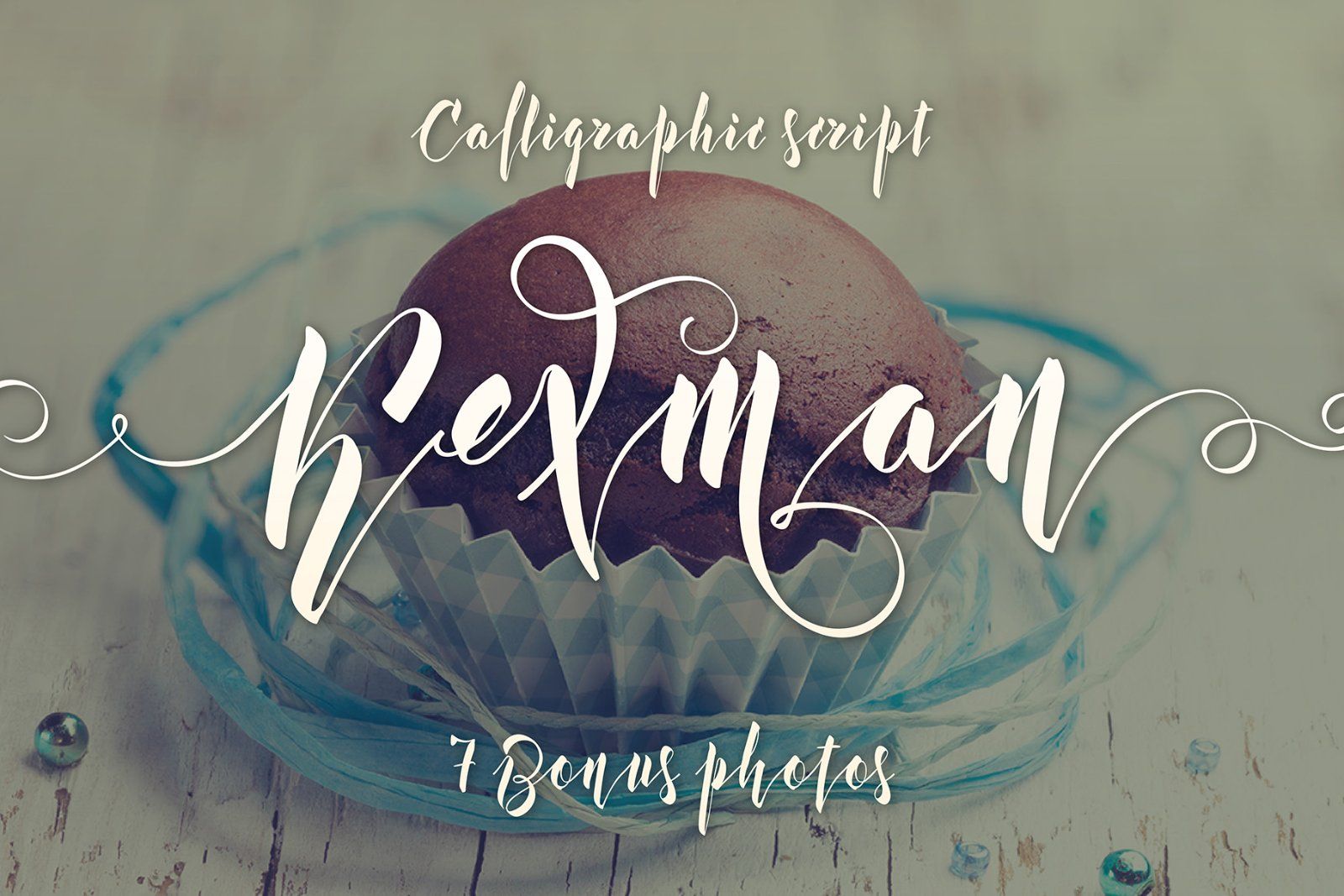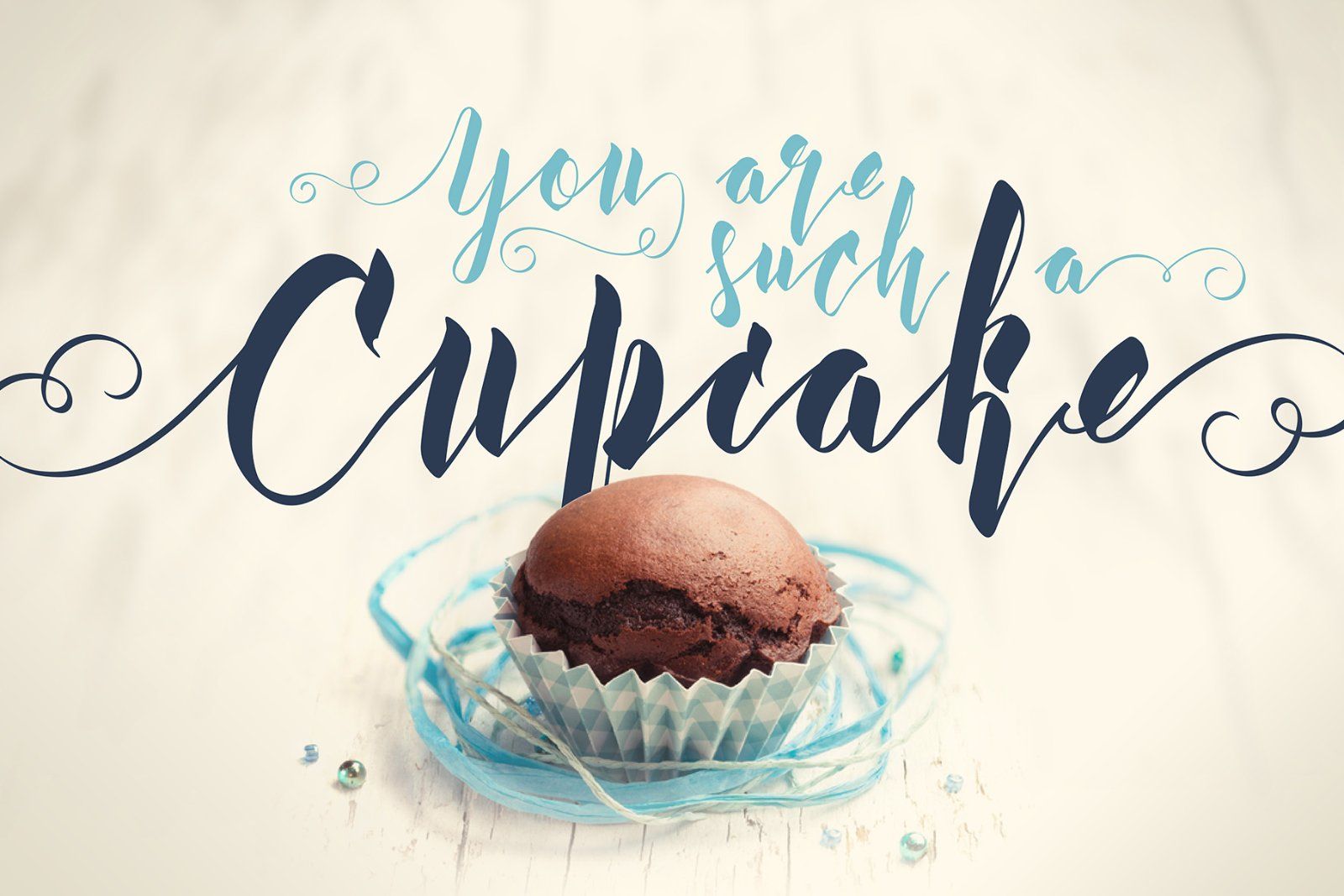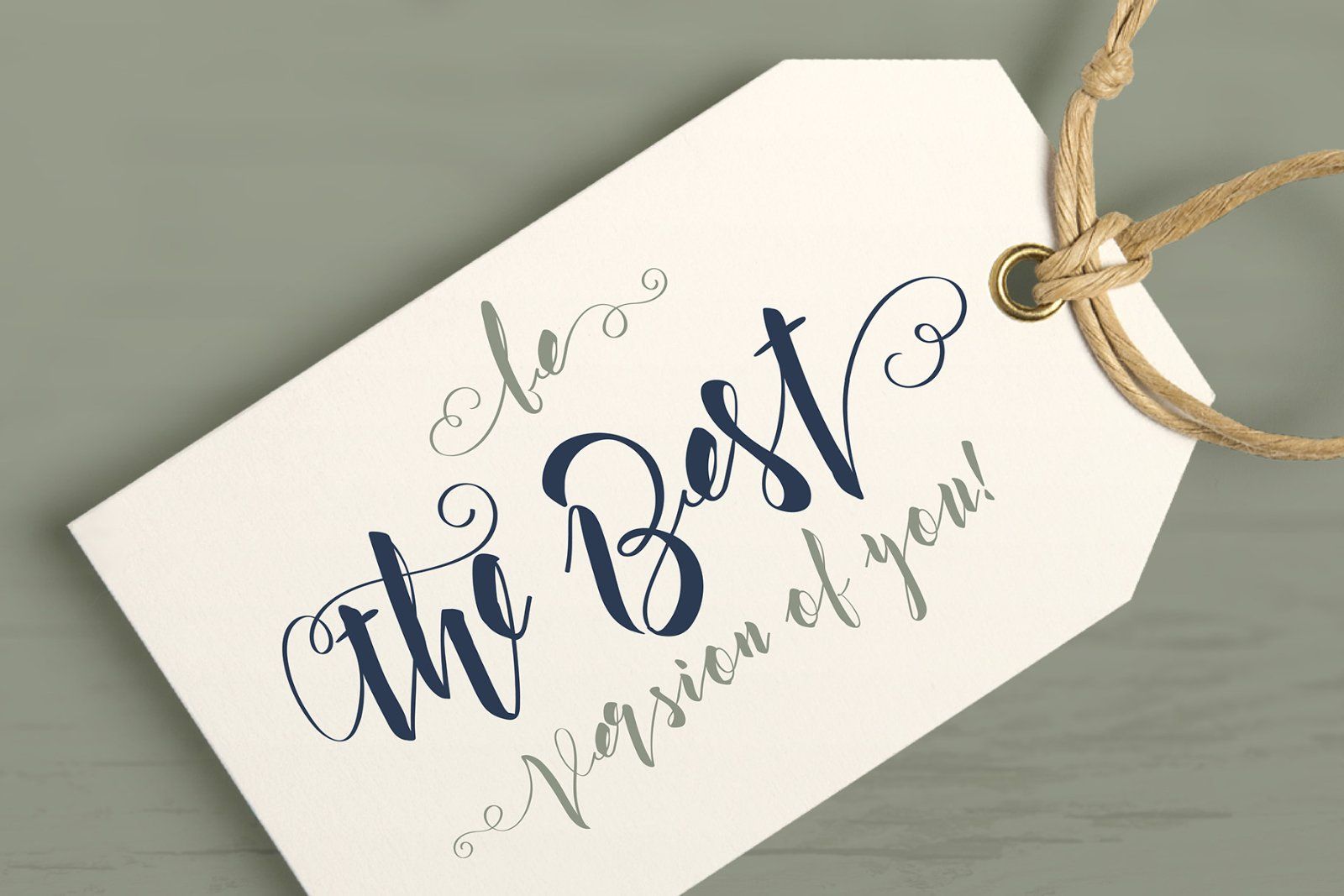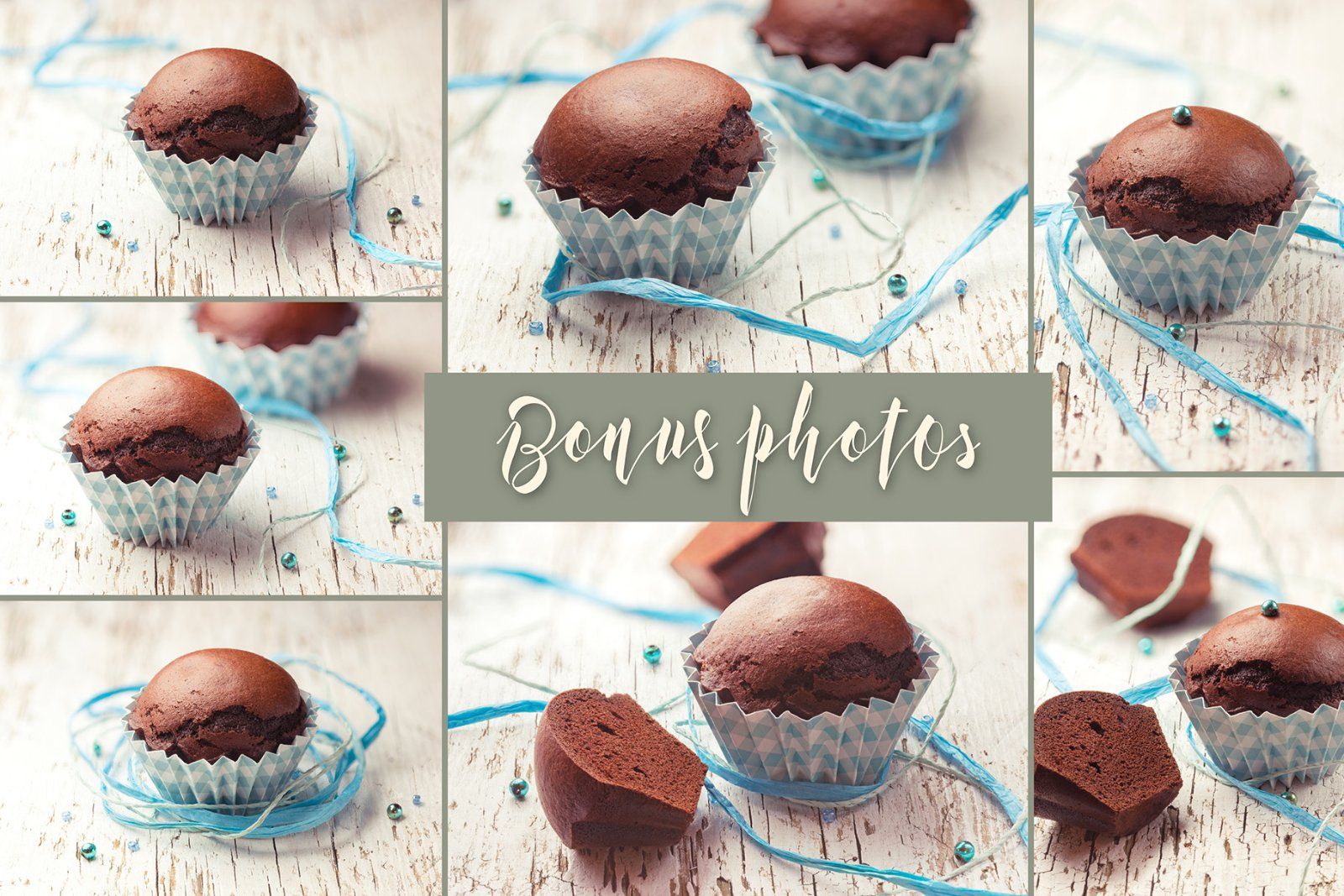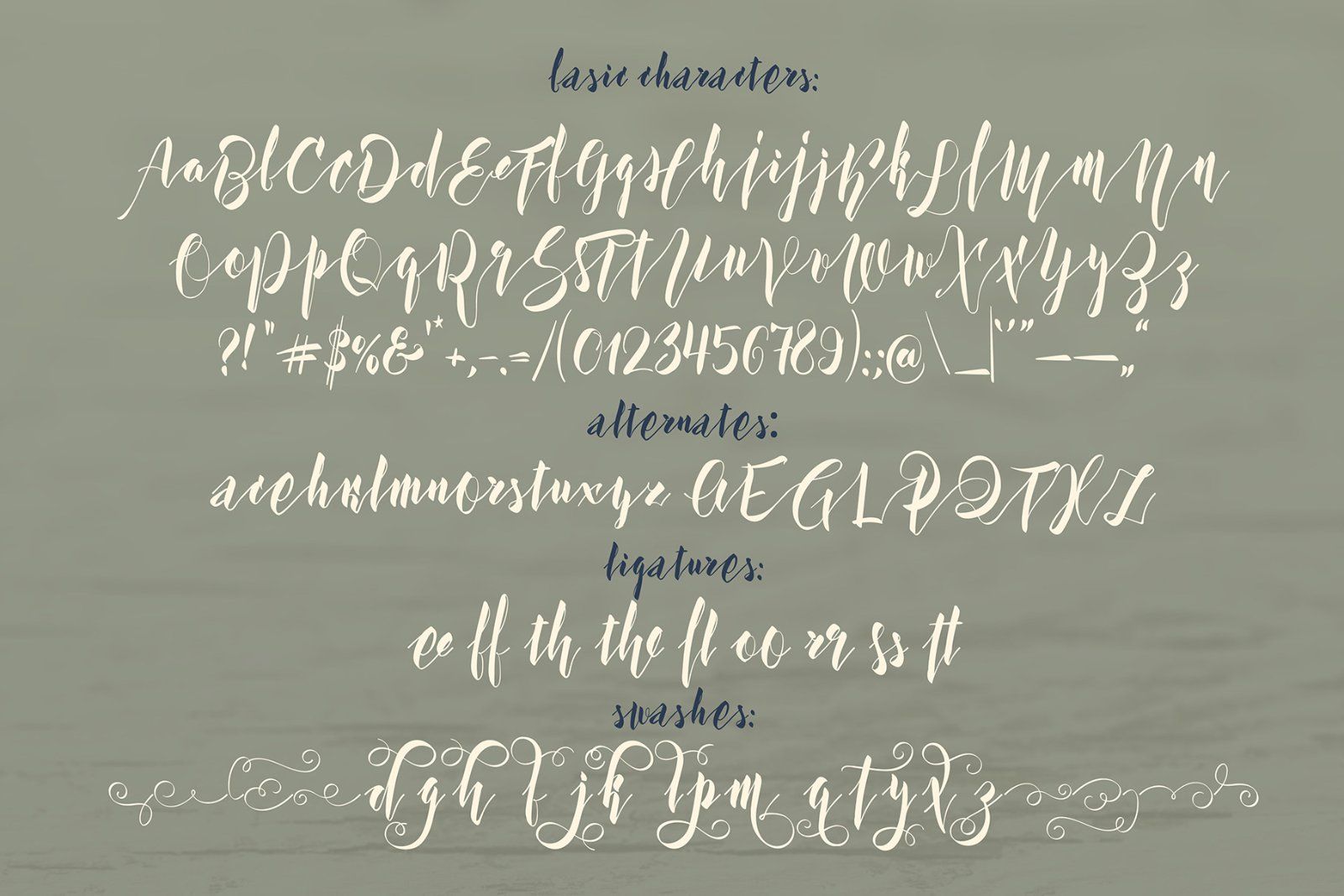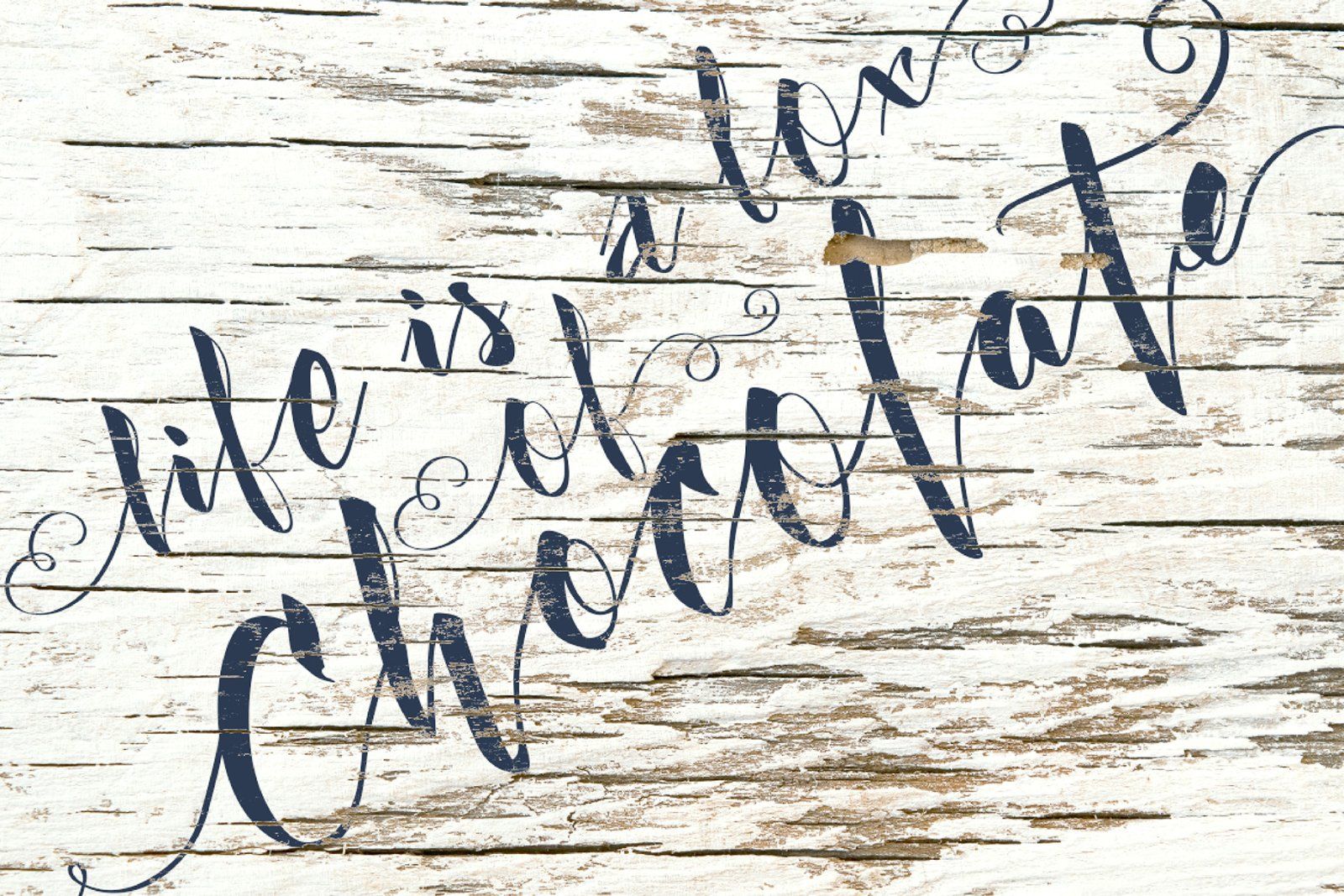
Hi! Introducing a calligraphic handmade script named "Kexman". It's a one line font with many OpenType features: ligatures, alternates, swashes. Also there is a sweet bonus - 7 high resolution photos of a chocolate cupcakes.
Note: This font contains only Latin characters (all available characters you can see on 5th screenshot)